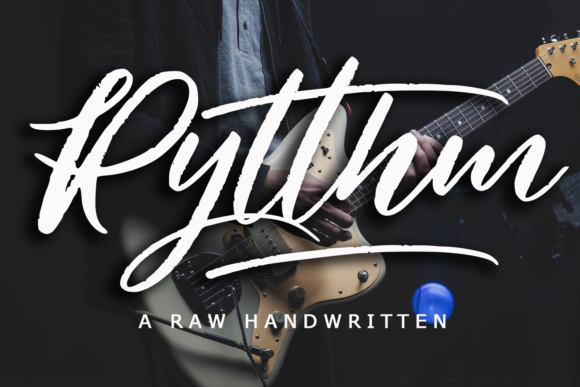
Rytthm Font
Embrace the Allure of Rytthm: The Enchanting Script Font That Captivates Hearts and Inspires Creative Expression
Journey into the realm of Rytthm, an exquisitely crafted script font that exudes elegance and charm. Its graceful strokes and delicate curves dance across the page, evoking a sense of timeless beauty and captivating all who behold it.
With Rytthm, your creative vision knows no bounds. Whether you're designing eye-catching logos, crafting heartfelt branding, or creating inspirational quotes, this font is your trusted companion, transforming ordinary words into works of art. Its versatility extends to wedding invitations, thank-you cards, greeting cards, business cards, and any design that craves a touch of handwritten finesse.
Step into the world of Rytthm and unleash your imagination. Let its flowing lines and enchanting characters guide you as you create designs that resonate with your audience, leaving an indelible mark on their hearts and minds.
Features that Make Rytthm Irresistible:
- Timeless Beauty: Rytthm's classic script style transcends time, ensuring your designs remain captivating and relevant for years to come.
- Unparalleled Elegance: Each letterform in Rytthm is meticulously crafted with grace and precision, exuding an air of sophistication and elegance.
- Versatility Unbound: From logos to branding, quotes to invitations, Rytthm effortlessly adapts to a wide range of design projects, bringing a touch of magic to each one.
- Handwritten Charm: Rytthm's organic, handwritten feel adds a personal touch to your designs, creating a sense of intimacy and connection with your audience.
- Endless Creative Possibilities: Rytthm's versatility opens up a world of creative possibilities, allowing you to explore unique design concepts and make your creations truly shine.